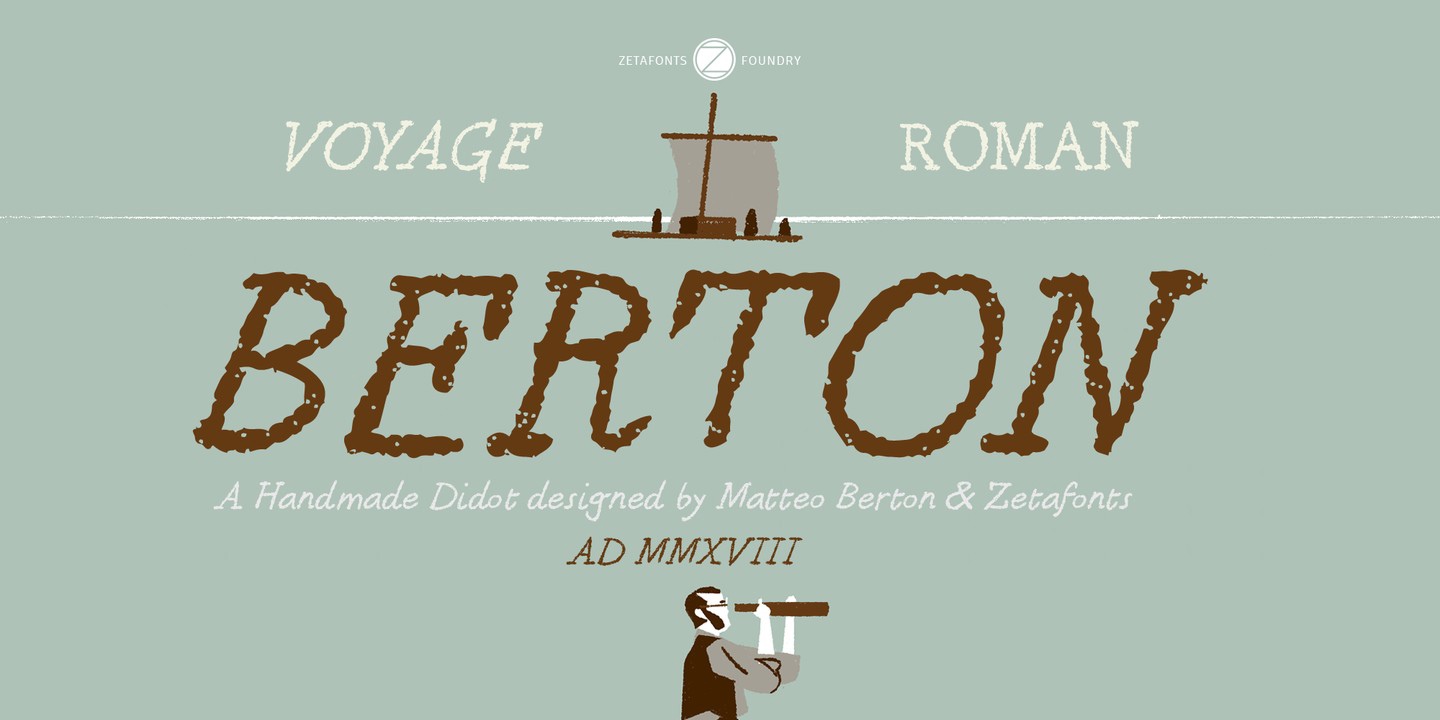
Berton Font
Berton Font is perfect for luxury hotel branding, upscale resort marketing, prestigious hospitality venues, sophisticated restaurant identities, elegant event planning, high-end travel agencies, exclusive club signage, and refined service company logos. This distinguished typeface excels in applications where hospitality excellence and service sophistication are essential for creating memorable and prestigious brand experiences that celebrate the art of exceptional service.
What makes Berton Font truly exciting is its impeccable embodiment of hospitality refinement and service excellence that captures the essence of world-class accommodations and the sophisticated attention to detail found in premium hospitality establishments. The font features elegant letterforms with refined proportions and service-inspired details that mirror the polished professionalism of luxury hospitality and the gracious warmth of exceptional guest experiences. Its hospitable personality and distinguished character create an immediate sense of welcome and service quality that resonates with discerning travelers seeking authentic luxury experiences and personalized attention. The typeface's hospitality heritage and prestigious appeal make it perfect for brands wanting to convey excellence, hospitality, and connection to the finest traditions of service and guest satisfaction.
The Berton Font family includes multiple weights from Light to Bold, complemented by elegant italic versions that enhance its hospitality versatility. The font offers comprehensive character sets with hospitality symbols, service-oriented ligatures, and luxury styling details that enhance its prestigious aesthetic. Additional graphic elements including crowns, service motifs, hospitality patterns, and elegant ornaments provide designers with complete branding tools rooted in luxury hospitality traditions and service excellence culture.